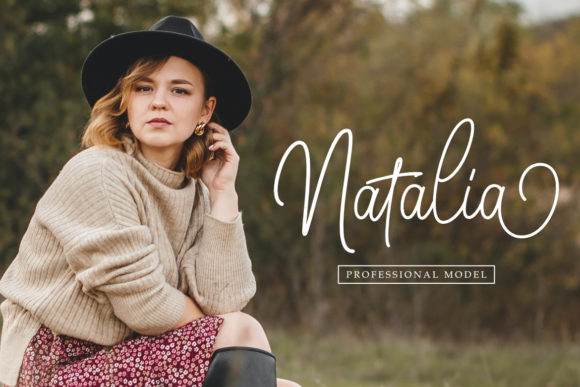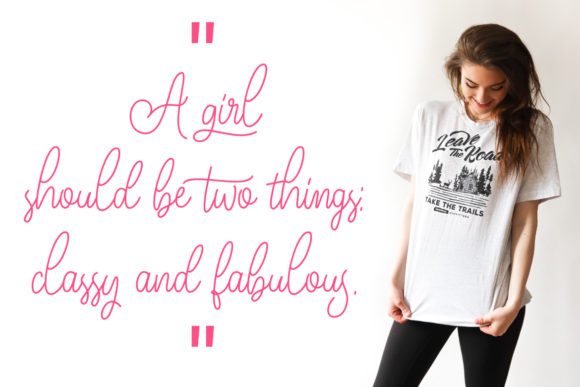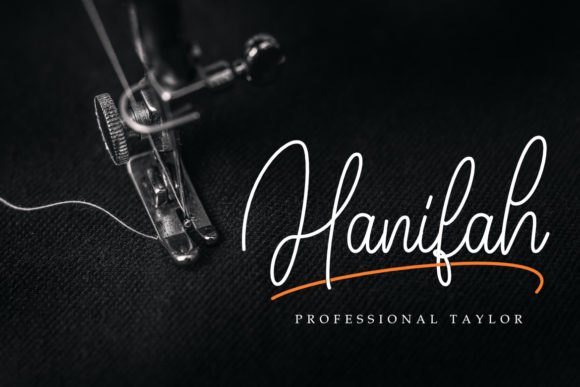
Introduction to Meghatone Signature Font
Meghatone SIgnature is a stunning handwritten font, featuring a cool twist.
It is the ideal font for fashion designs, business cards, wedding invitations, t-shirt designs, logos, quotes, photography and much more This font is PUA encoded which means you can access all of the glyphs and swashes with ease.
Key Features of Meghatone Signature Font
Why Choose Meghatone Signature Font?
Meghatone Signature Font offers exceptional quality and versatility, making it a valuable addition to your design toolkit. Whether you’re creating for personal projects or commercial use, Meghatone Signature Font delivers professional results.